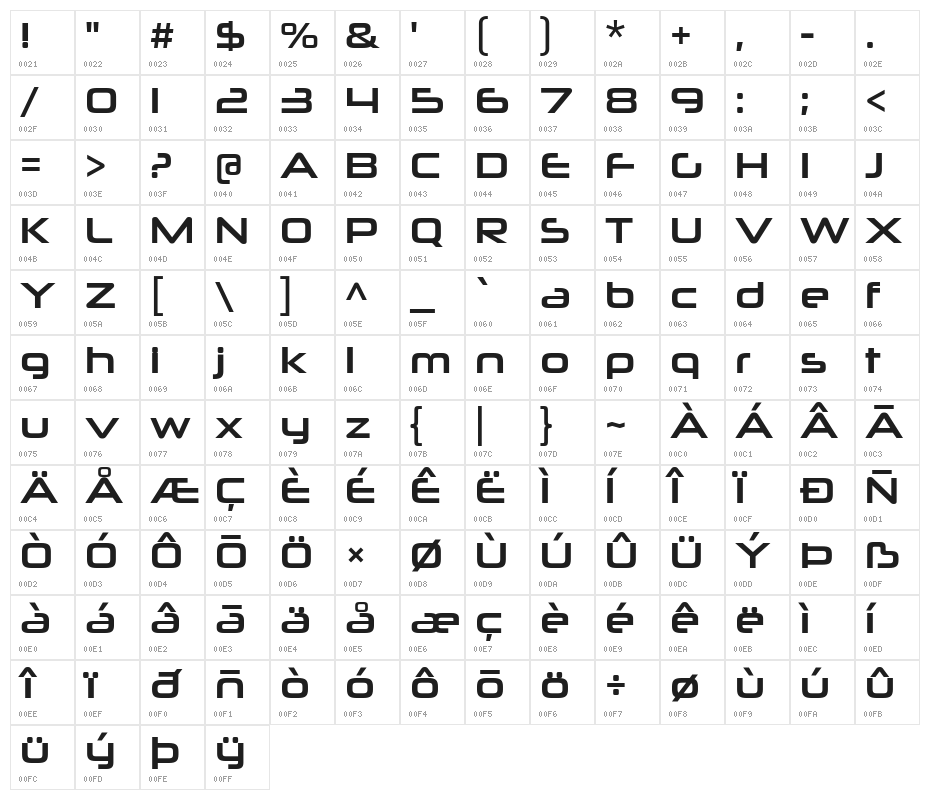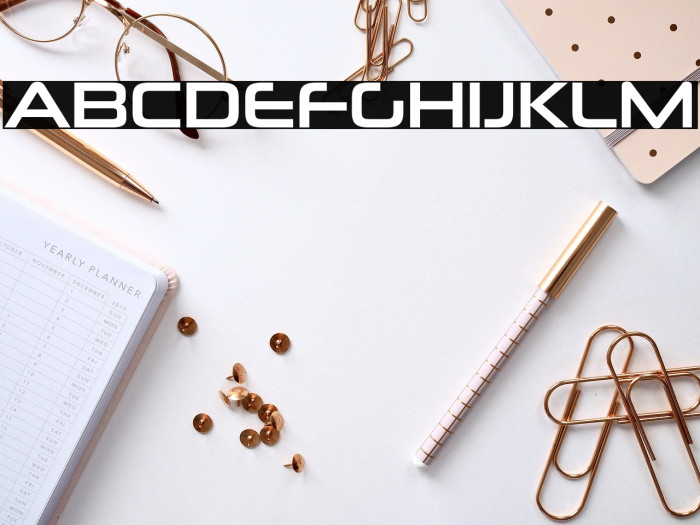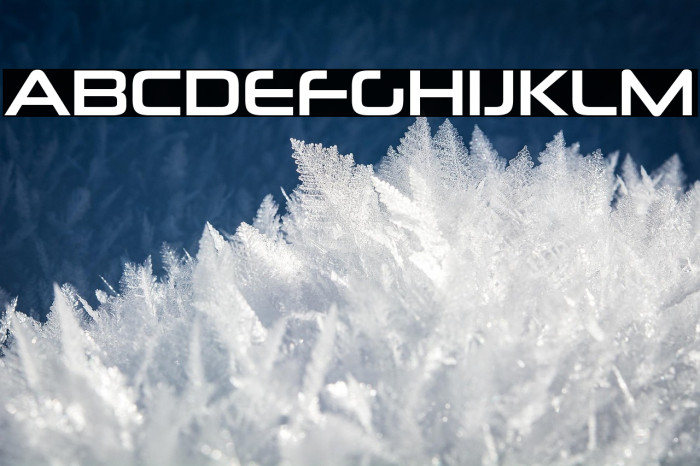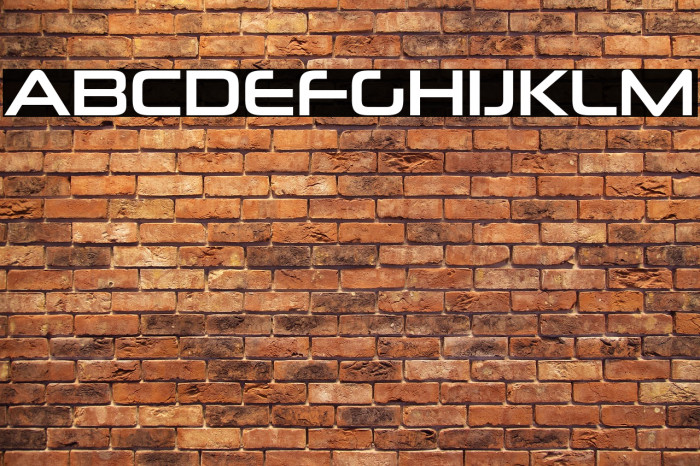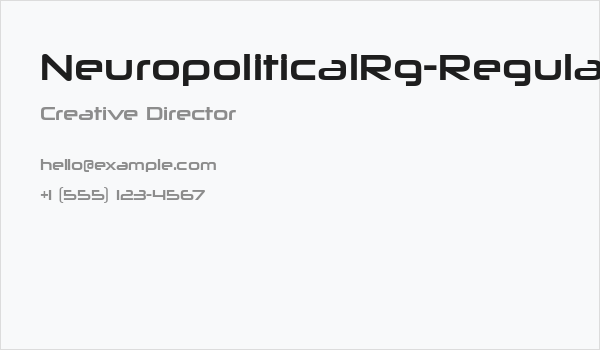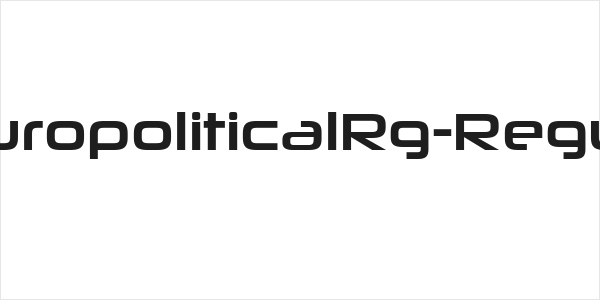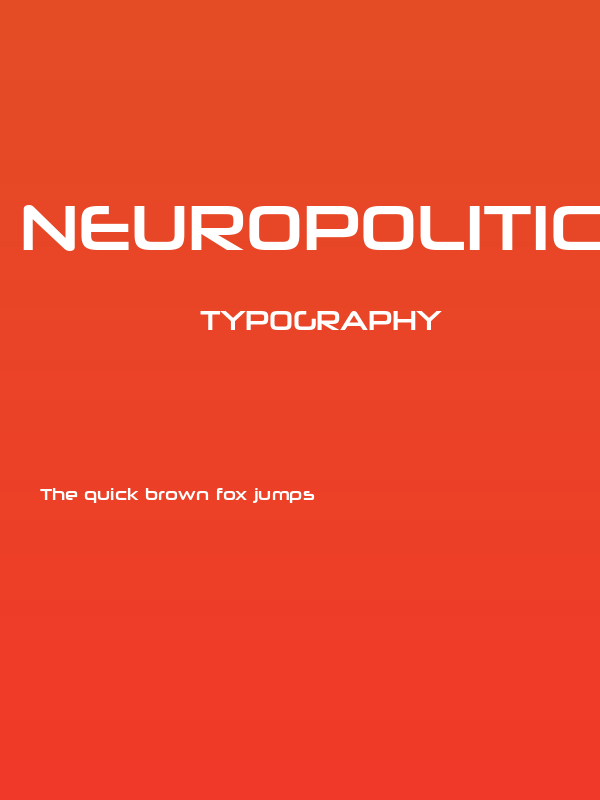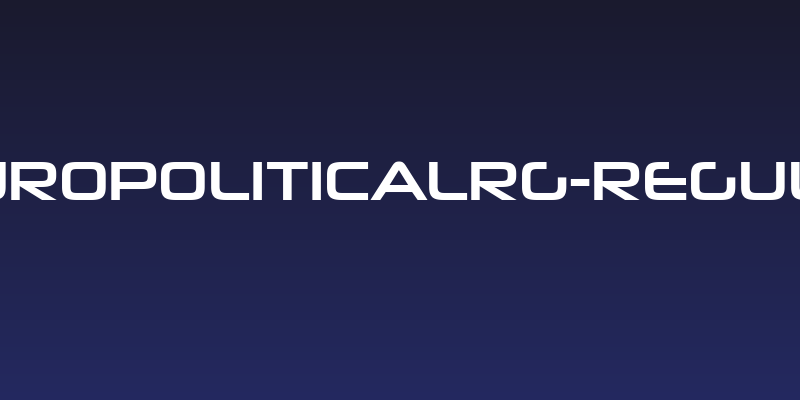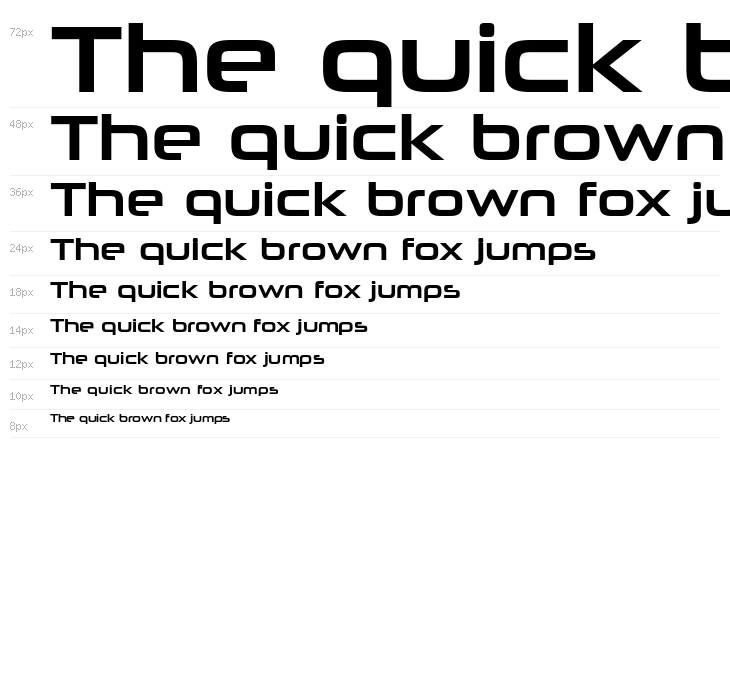
NeuropoliticalRg-Regular Font
NeuropoliticalRg-Regular Description
This font features a futuristic and sleek design, characterized by its geometric shapes and clean lines. The uppercase letters have a distinct angularity, while the lowercase letters maintain a rounded, softer appearance. The numerals are consistent with the overall style, offering a modern and digital feel. Special characters are designed with the same attention to detail, ensuring a cohesive look across all glyphs. The font's uniform stroke width and minimal contrast contribute to its modern aesthetic, making it suitable for technology-related projects.
| Use Case | Headlines, Logos, Digital interfaces |
| Proposed Projects | Ideal for technology branding, digital interfaces, and modern advertising. |